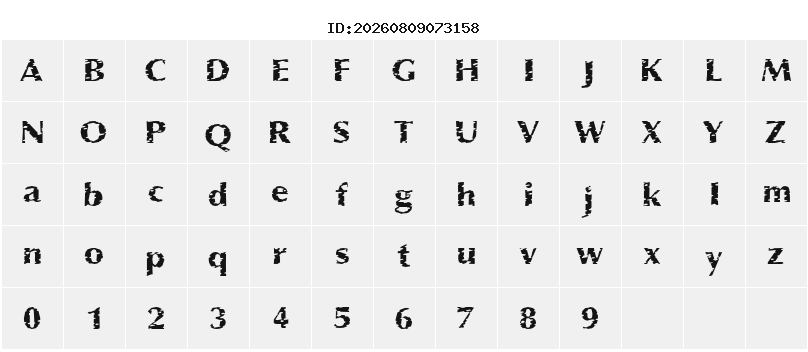
Pessima Preview
About Pessima.ttf
Pessima.ttf is a modern, elegant sans-serif font designed for ultimate readability and visual harmony. Perfect for branding, headlines, web design, and print materials.